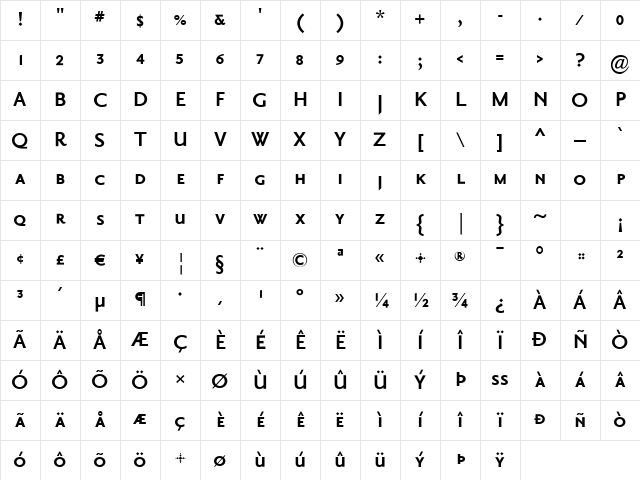
Priori Sans Bold
Copyright: Copyright (c) 2003, Emigre Inc.; Designed by Jonathan Barnbrook
Design Context for Priori Sans
Priori Sans is a composed and adaptable typeface that performs quietly and consistently across a wide range of design contexts. Its bold stroke weight gives it real presence on the page.